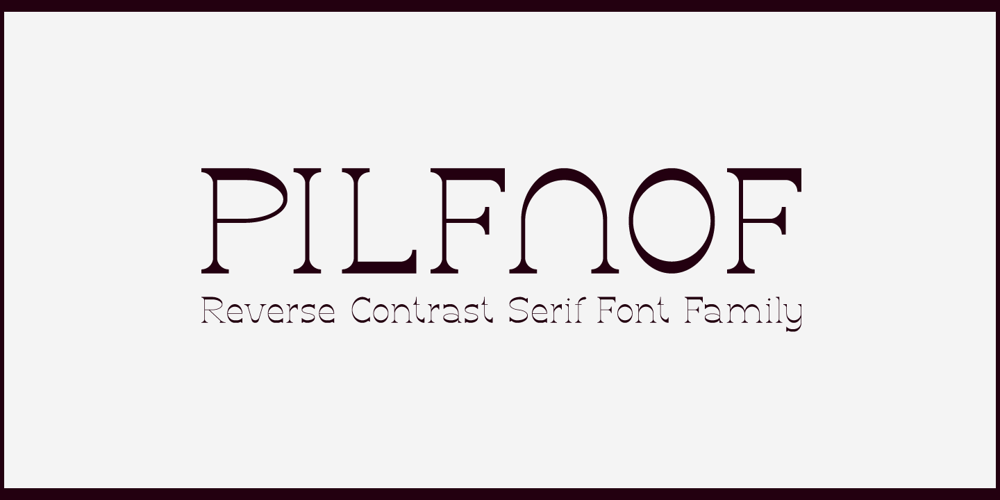
Pilfnof
Pilfnof font
Pilfnof Font Family was designed by Eryk Kosinski and published by Eksign. Pilfnof contains 4 styles and family package options. Pilfnof contains:- 394 glyphs which include: Basic Latin, Latin Extended – A, Latin 1 – Supplement and General Punctuation.- 4 weights: Light, Regular, Bold and BlackPilfnof is a reverse contrast serif font family. Purpose of the project was to design a standing out modern serif which revolves around reverse contrast. Width of strokes is fully reversed. Weight, width and contrast are regular while x-height is high. It contains uppercase and lowercase letters and lining figures.Pilfnof is perfect for use in Branding and Publications. It can be used both for text as well as headings and titles. Heavy weights are ideal for headlines while light weights are suitable for body text.